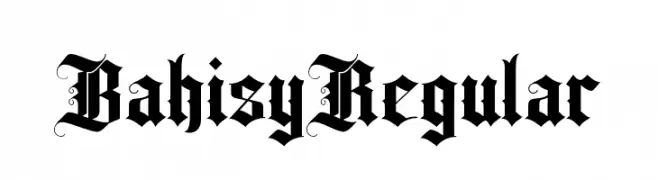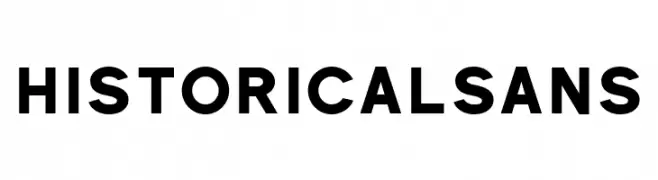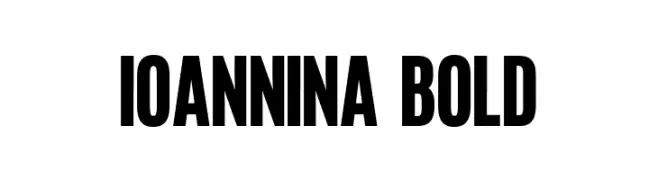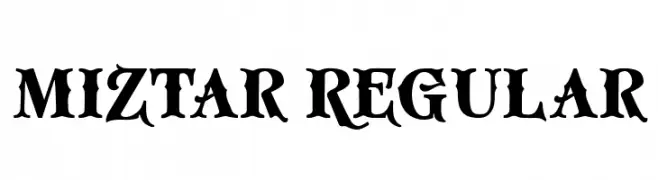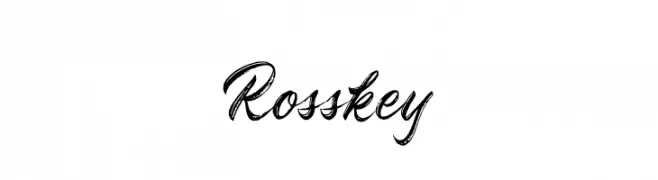
A bold, modern sans-serif font with clean lines and geometric simplicity.
An elegant, flowing script font with ornate uppercase and connected lowercase letters.
A bold, sans-serif font with a strong, modern presence.
A bold, Gothic-inspired font with intricate details and sharp serifs.
A bold, ornate blackletter font with a medieval, gothic style.
A whimsical, decorative script font with elegant loops and swirls.
A flowing, cursive script font with elegant loops and swirls.
An elegant script font with flowing, ornate characters and decorative embellishments.
A bold, modern font with strong vertical lines and consistent stroke width.
A bold, condensed font with a strong, modern presence.